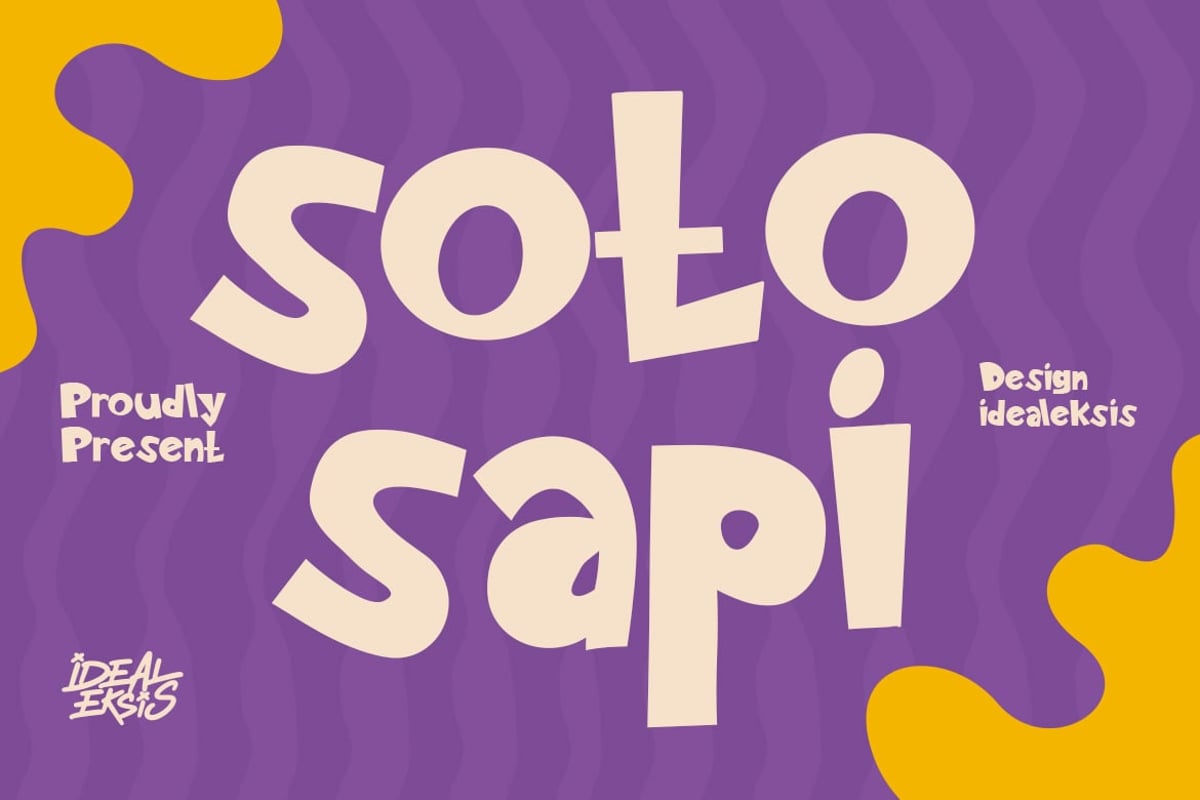
Soto Sapi - Food Font
Bring playful energy to your food branding with bold, chunky letterforms that bounce with organic charm.
This expressive typeface showcases hand-drawn quality with dynamic stroke variations that create visual rhythm and movement. The rounded terminals and soft edges deliver a friendly, approachable aesthetic that's perfect for catching the eye.
Perfect for:
- Bakery and café branding
- Food and beverage logos
- Restaurant menus and signage
- Coffee shop and donut shop designs
- Food packaging and labels
- Social media food promotions
- Kitchen-themed posters and prints
- Culinary blogs and recipe graphics